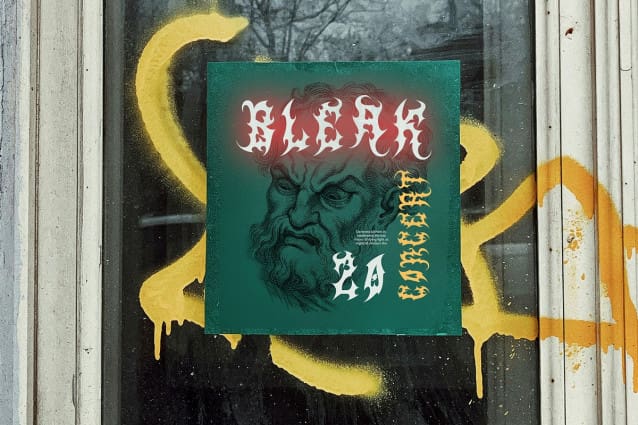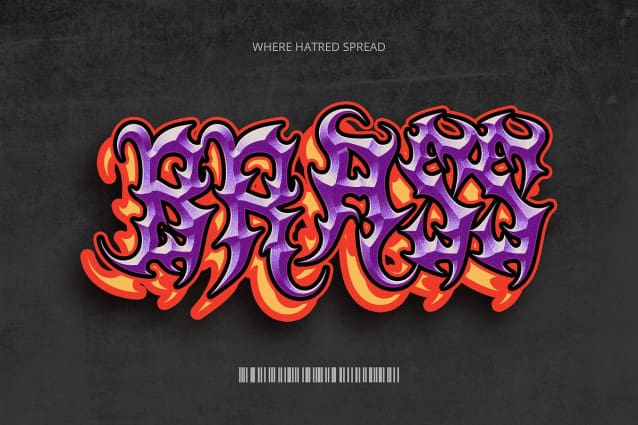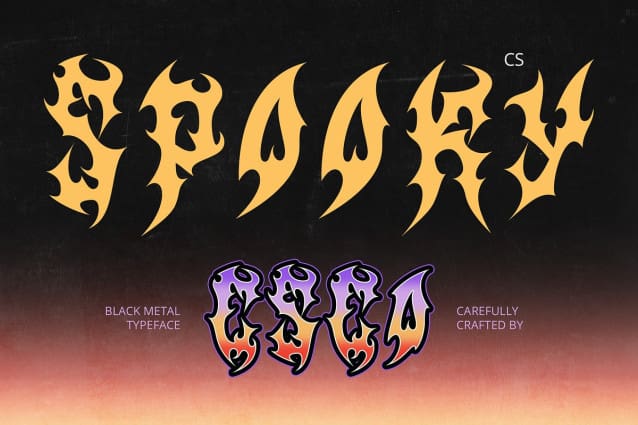
CS Spooky Font
CS Spooky Font is a Black Metal display font that embodies the eerie, raw, and rebellious energy of the extreme metal scene. With jagged, thorny letterforms and chaotic textures, this typeface is designed to capture the essence of darkness and mystery. Each character features aggressive strokes, gothic influences, and a distressed, root-like structure, making it a perfect choice for projects that demand a bold and sinister atmosphere.
Inspired by the Depths of Metal Subculture Echoing the raw and unfiltered aesthetic of Black Metal music, CS Spooky channels the visual language of underground metal logos, album covers, and concert posters. Its intricate details and unconventional forms create a deliberately aggressive and nearly unreadable look, reinforcing the genre’s dark, enigmatic appeal. The rough, organic edges and heavy contrasts enhance the aura of brutality and chaos, making it an authentic representation of extreme music culture.
Perfect for Horror, Metal, and Gothic Themes CS Spooky is the ultimate choice for designs that embrace horror, gothic, and occult aesthetics. Whether used for extreme band branding, horror movie posters, dark-themed apparel, or underground event promotions, this font injects an intense, haunting presence into any project. Its ability to create a sinister and immersive mood makes it ideal for those who want to push the boundaries of dark, experimental design.